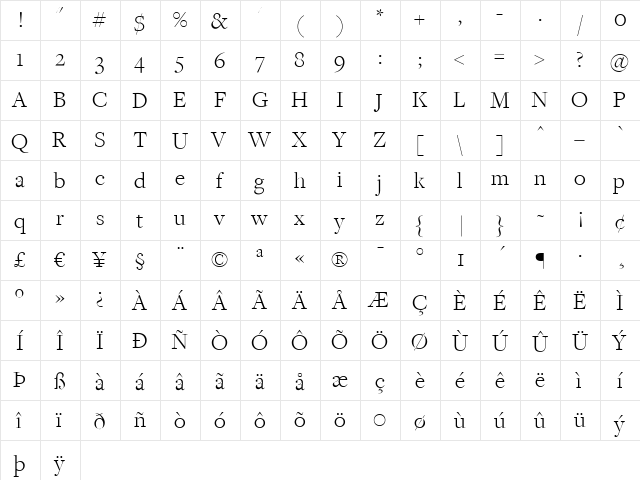
FreightDispLight Regular
| Foundry | Joshua Darden & Phil's Fonts, Inc |
| Designer | Joshua Darden |
Design Context for FreightDispLight Typeface
FreightDispLight takes a measured approach to typography — its balanced proportions and neutral character make it a reliable workhorse for both digital and print work. The delicate stroke weight brings airiness and refinement to layouts.